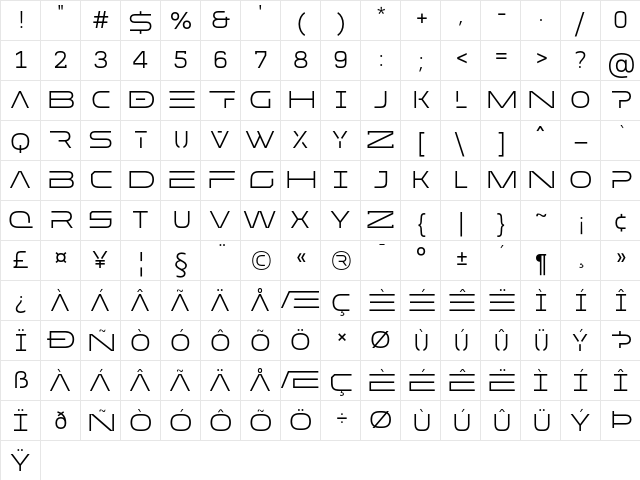
MADE Future X HEADER Light
Design Context for MADE Future X HEADER Typeface
MADE Future X HEADER has a distinctly futuristic character, with geometric precision and clean angles that feel at home in technology, gaming, and sci-fi contexts. Its slender proportions lend an understated elegance to any composition.
Pro Tip: Try MADE Future X HEADER with generous letter-spacing in UI labels and navigation — the geometric forms benefit from room to breathe.